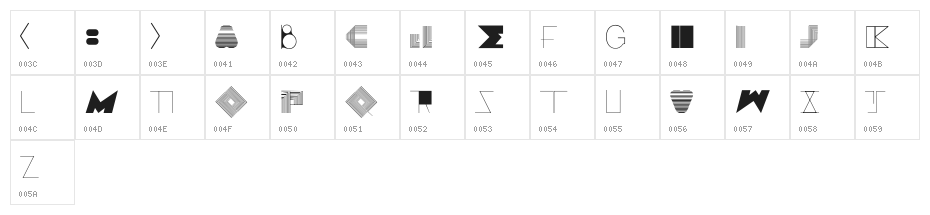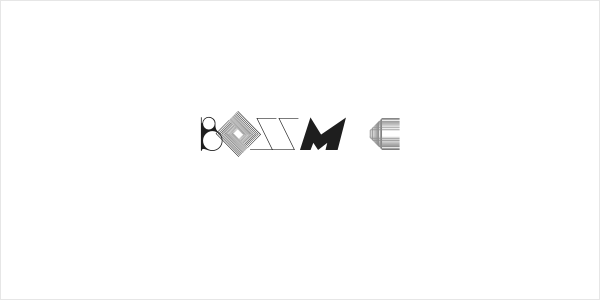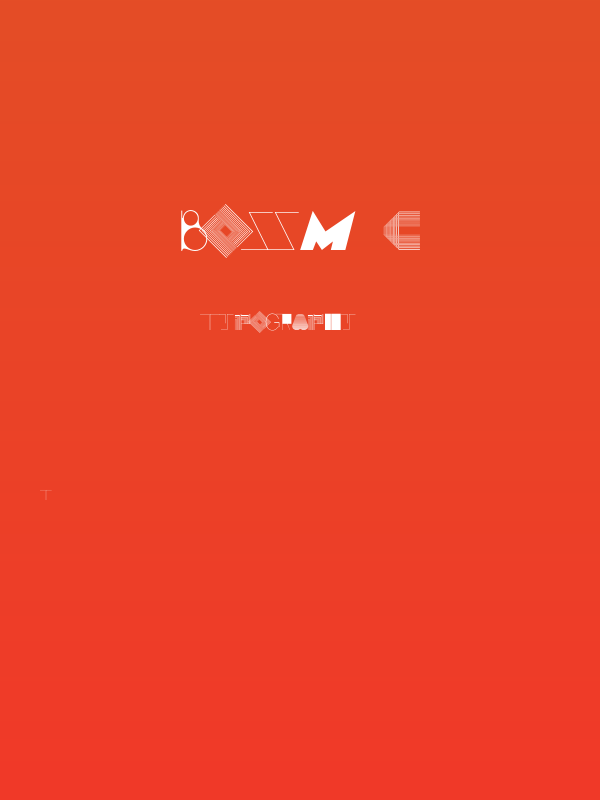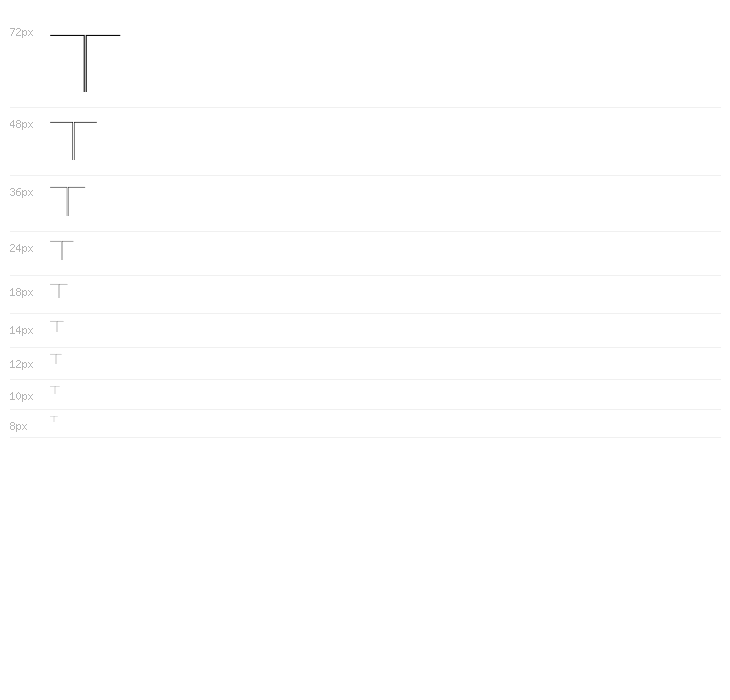
BOSSM-C Font
BOSSM-C Description
This font features a highly decorative and geometric style, characterized by bold, angular shapes and intricate line patterns. Each letter is uniquely designed with a combination of solid fills and striped textures, creating a striking visual impact. The uppercase letters exhibit a strong sense of individuality, with some incorporating optical illusions and layered effects. The overall appearance is modern and avant-garde, making it ideal for creative and artistic projects. The font's distinctiveness lies in its ability to convey a sense of movement and depth through its varied line weights and geometric forms.
| Proposed Projects | Ideal for posters, album covers, branding, and any project requiring a bold, artistic statement. |